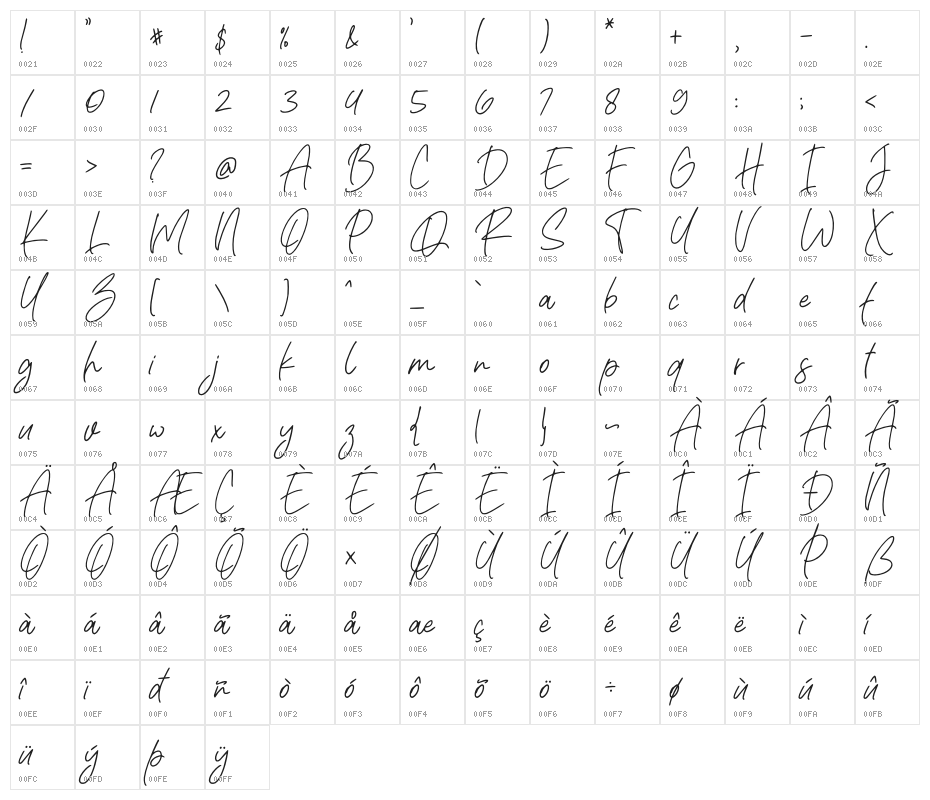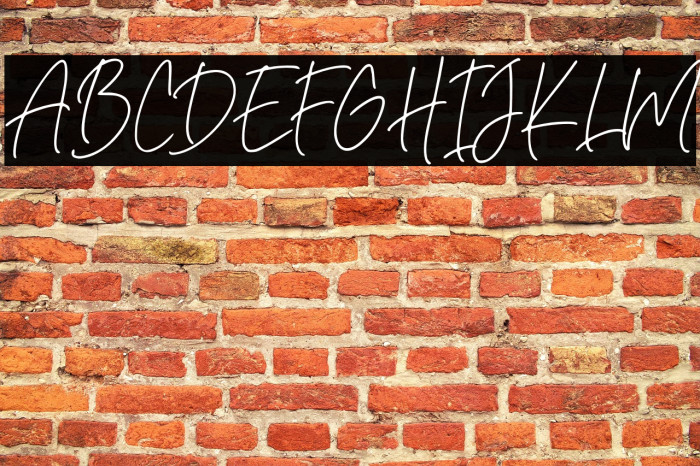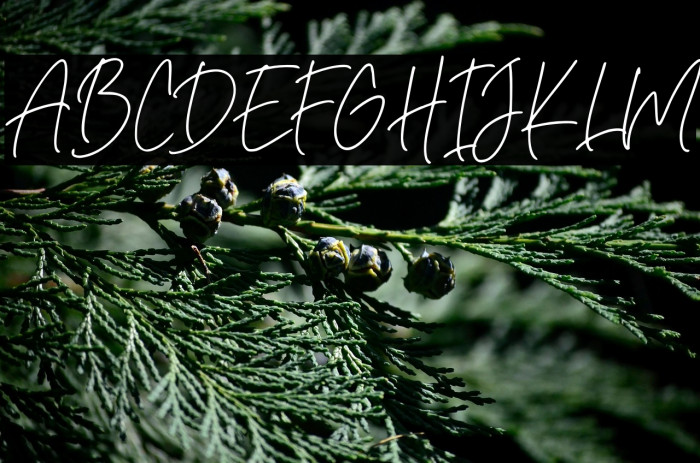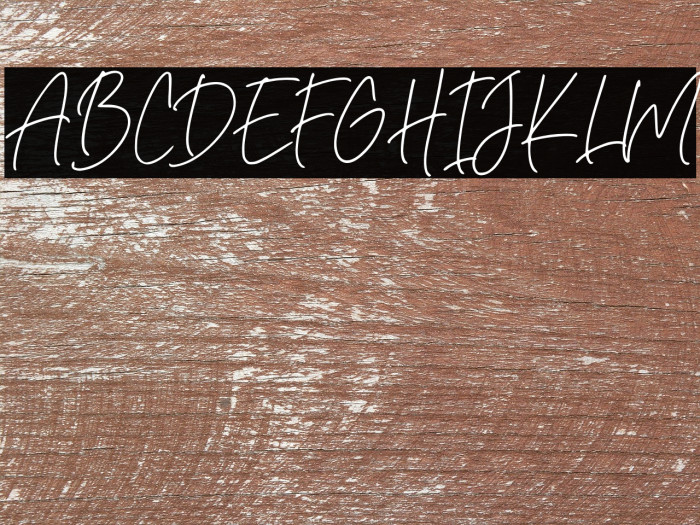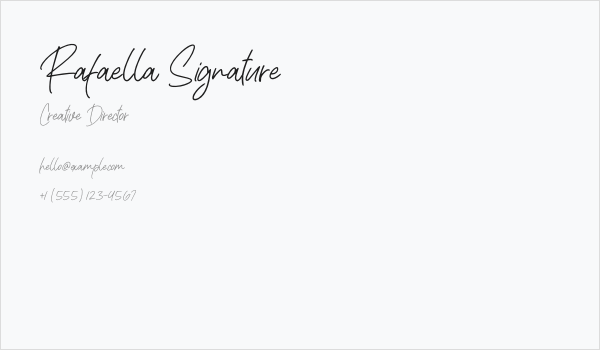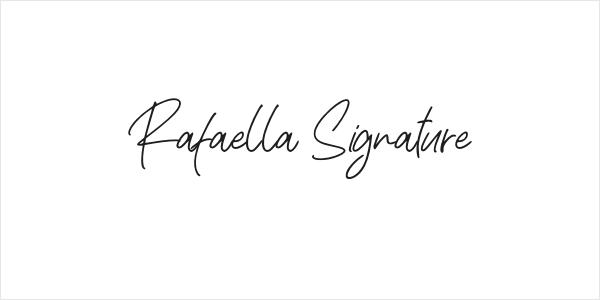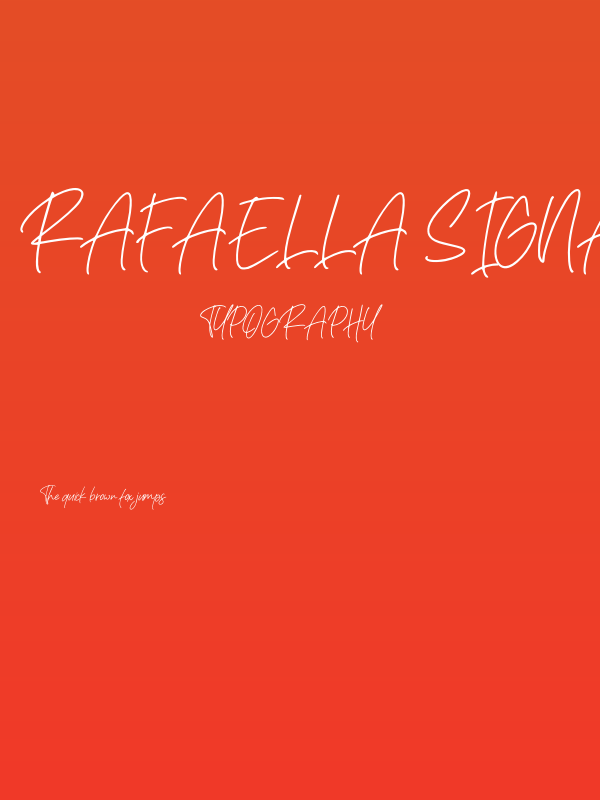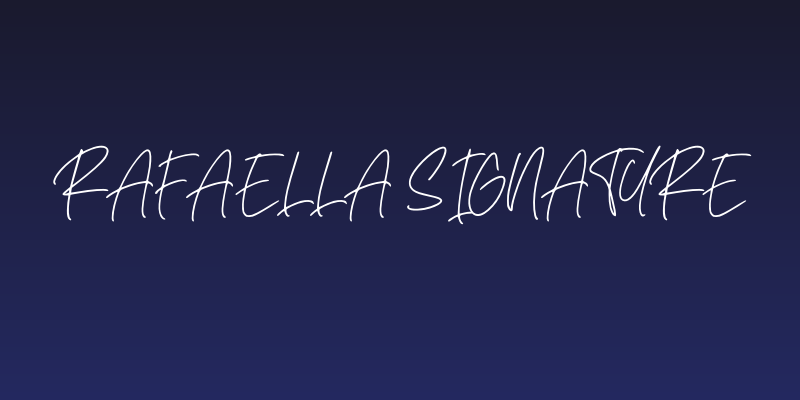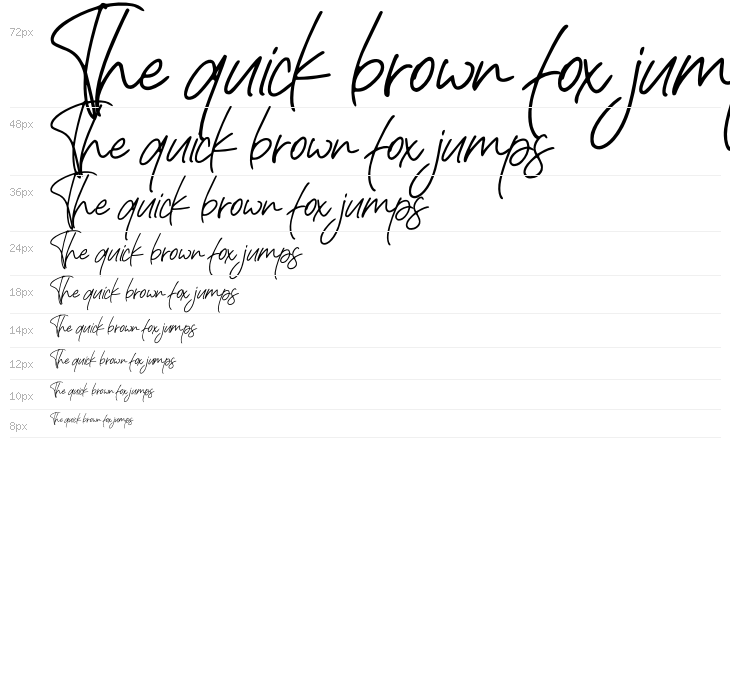
Rafaella Signature Font
Rafaella Signature Description
This font exudes a casual yet elegant handwritten style, characterized by its fluid and continuous strokes that mimic natural handwriting. The letters are slightly slanted, adding a dynamic and personal touch. The uppercase letters are tall and slender, while the lowercase letters maintain a consistent flow, enhancing readability. The numbers and special characters are crafted with the same attention to detail, ensuring a cohesive look across all text elements. This font is perfect for projects that require a personal or artistic flair, such as invitations, greeting cards, or branding materials.
| Proposed Projects | Ideal for invitations, greeting cards, personal branding, and artistic projects. |